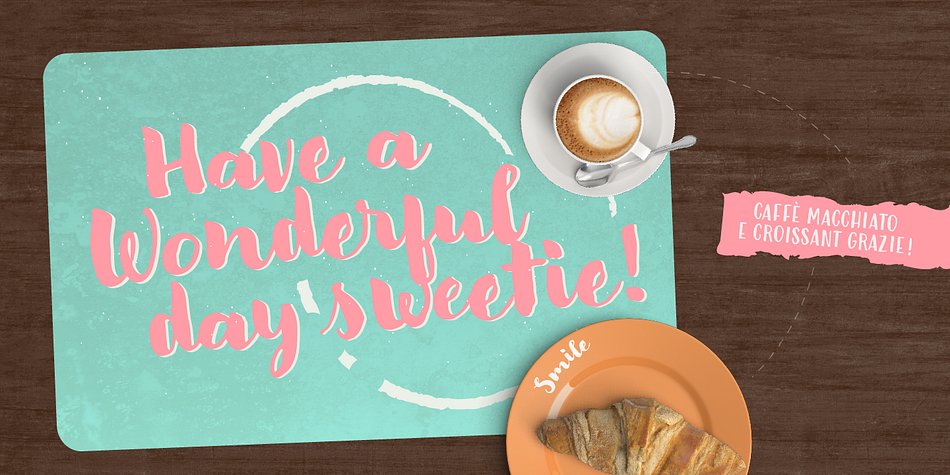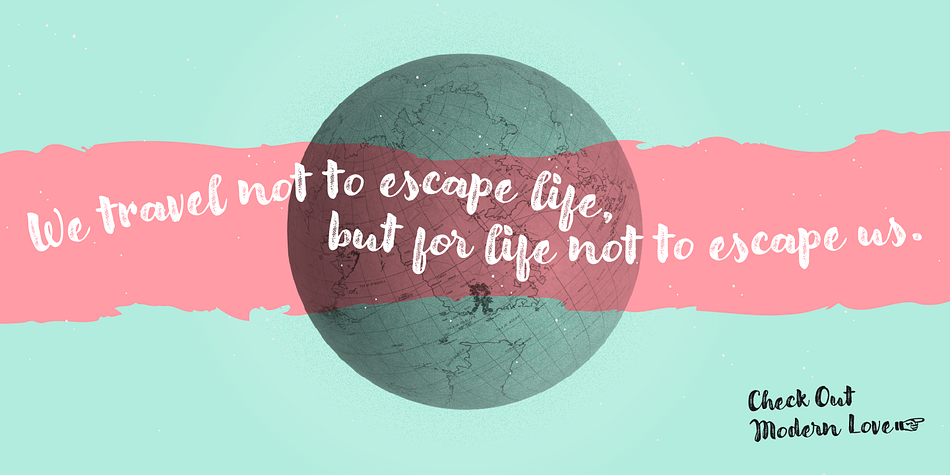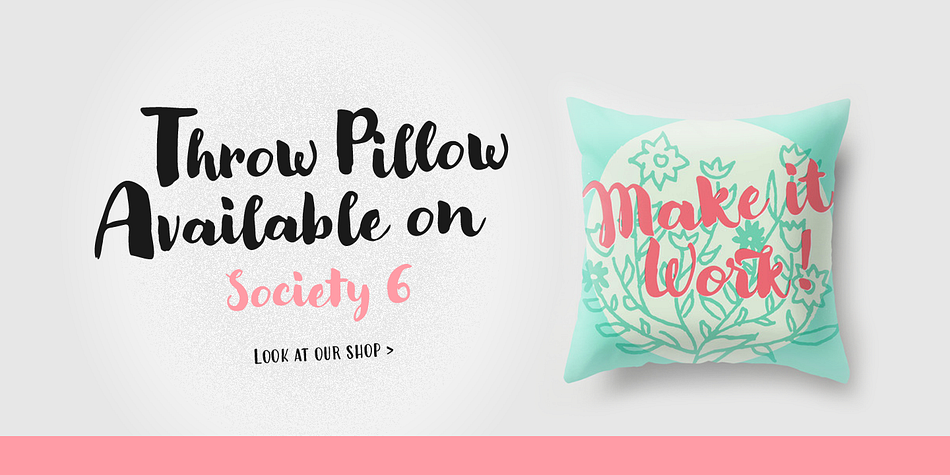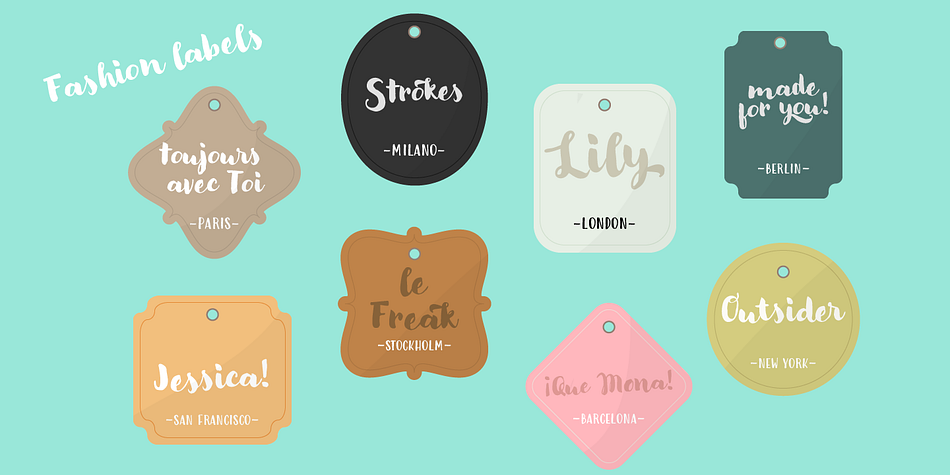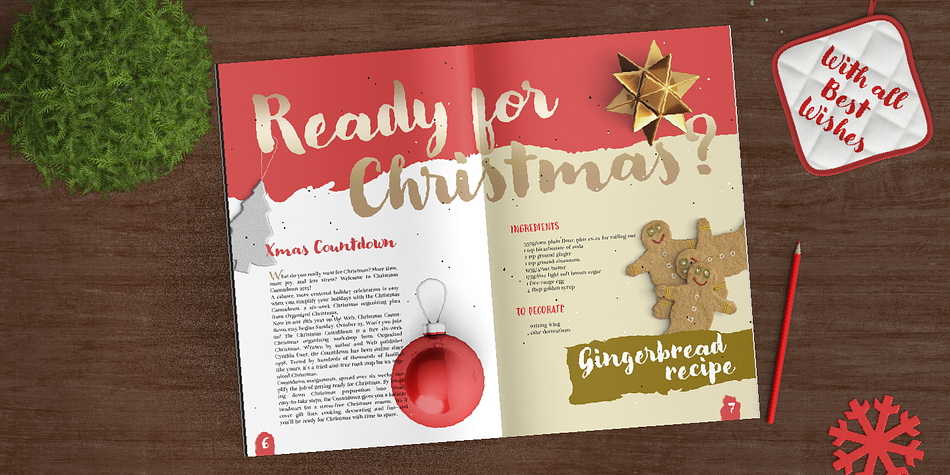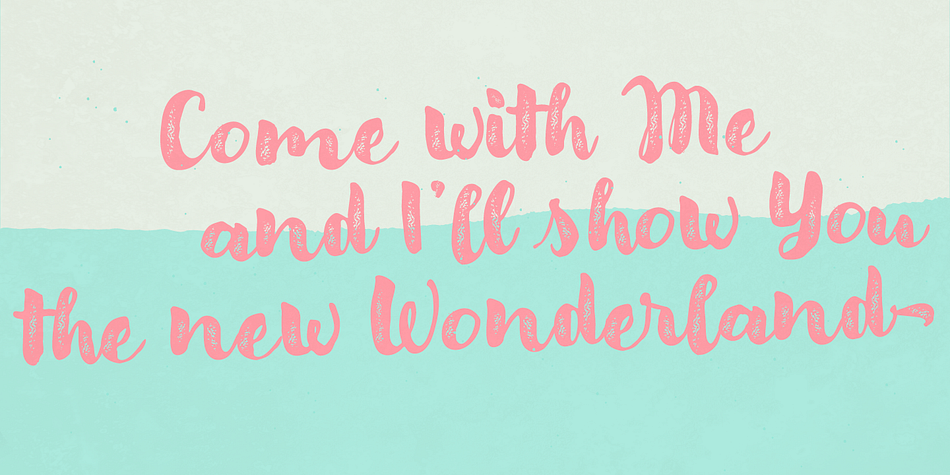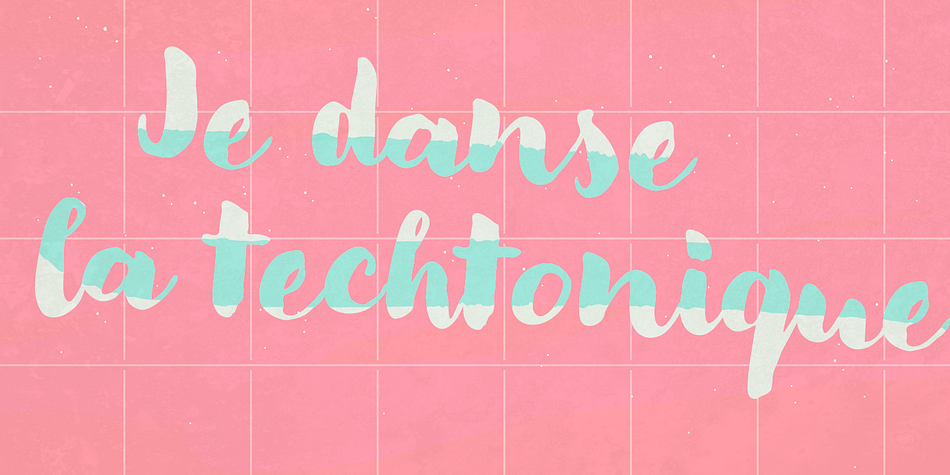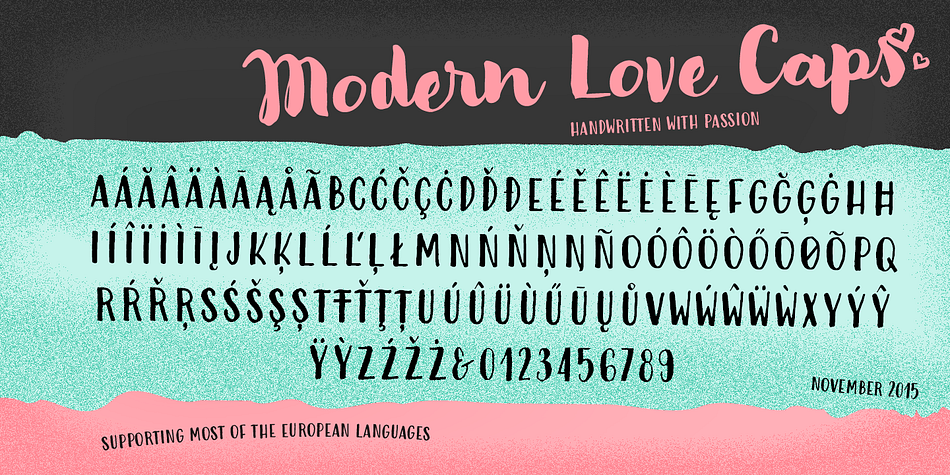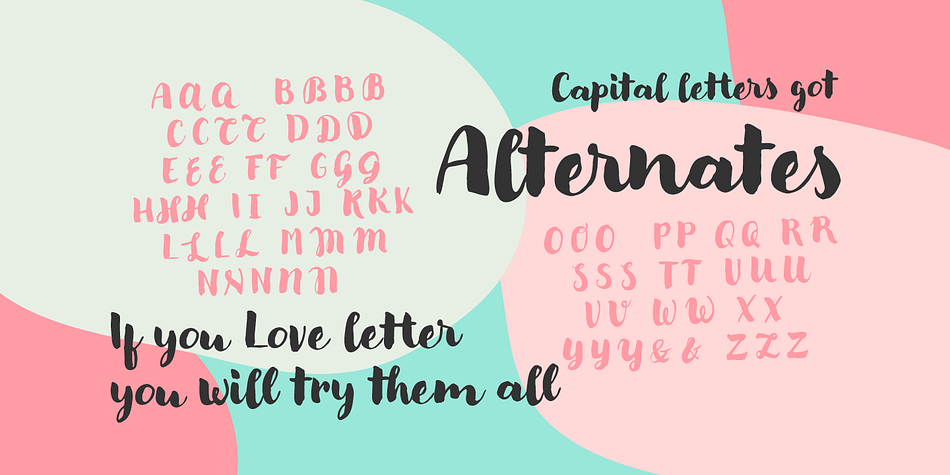
Modern Love is a grunge, brush script and hand display font family. This typeface has four styles and was published by Resistenza.es.
Breaking from our catalog of typefaces to create a new handwritten font family, Modern Love was born out of our desire to see what would happen if we took a step back from the norm. We weren’t looking for the perfection of the many calligraphy techniques, but more of a natural way of writing with the same tools. Our escapist experiment into casual lettering culminated into 4 fonts: Modern Love Regular, Grunge, Rough and Caps.
Modern Love Regular is a hand-painted script, each glyph individually designed with a pointed brush and walnut ink. The aim was to create an effortless hand-drawn feel while keeping the contrast high density.
Playful, yet polished, this font works very well when accentuated with the family’s two distinctive styles:
Modern Love Grunge, simulating a washed-out effect, perfect to add a vintage look to your projects; and Modern Love Rough, with its crunchy borders, makes letters visibly rough-around-the edges and gives large letters an unmistakeable pop.
All three fonts include a hand-painted set of ornaments, swashes and alternates to limitlessly customize and decorate your texts, accessible through Opentype features.
Modern Love Caps is the fourth font, a handwritten Sans Serif that ties the family together with its simplicity and readability. Designed with a pointed nib and Indian ink, this font boasts a different style that perfectly complements Modern Love Regular, Grunge and Rough.
The result is a fresh font family perfect to create headlines, posters, DIY hand-lettered artwork, books, holiday cards, wrapping paper, invitations, T-shirts, labels, packaging for cosmetics, fashion supplies, food products, artisanal goods, and an endless array of options for your projects. Modern Love…when brush meets passion.